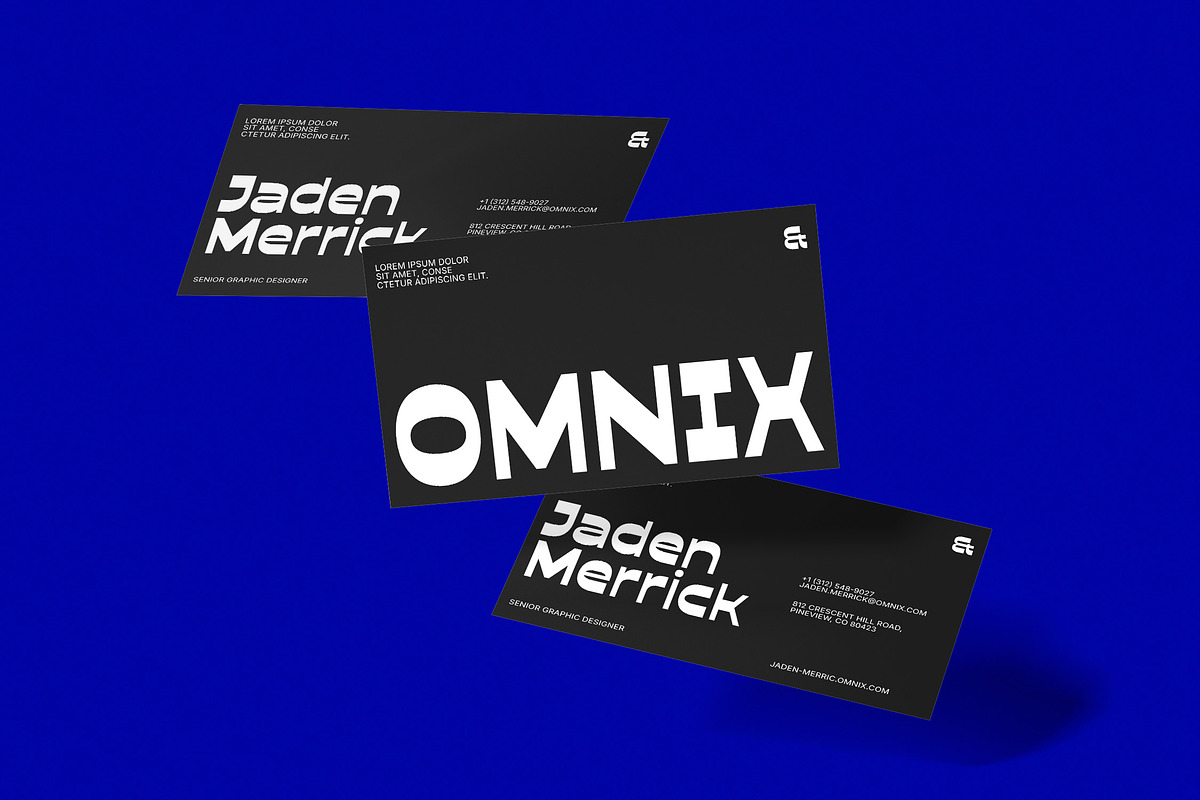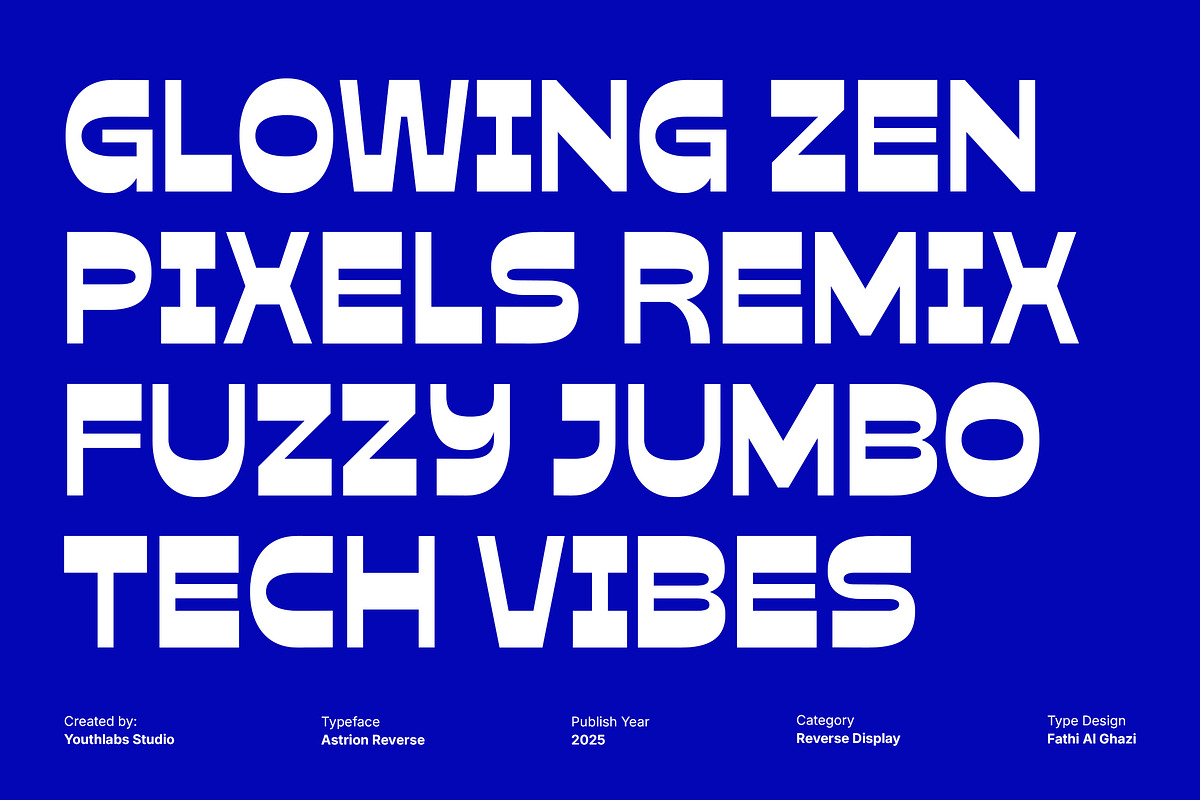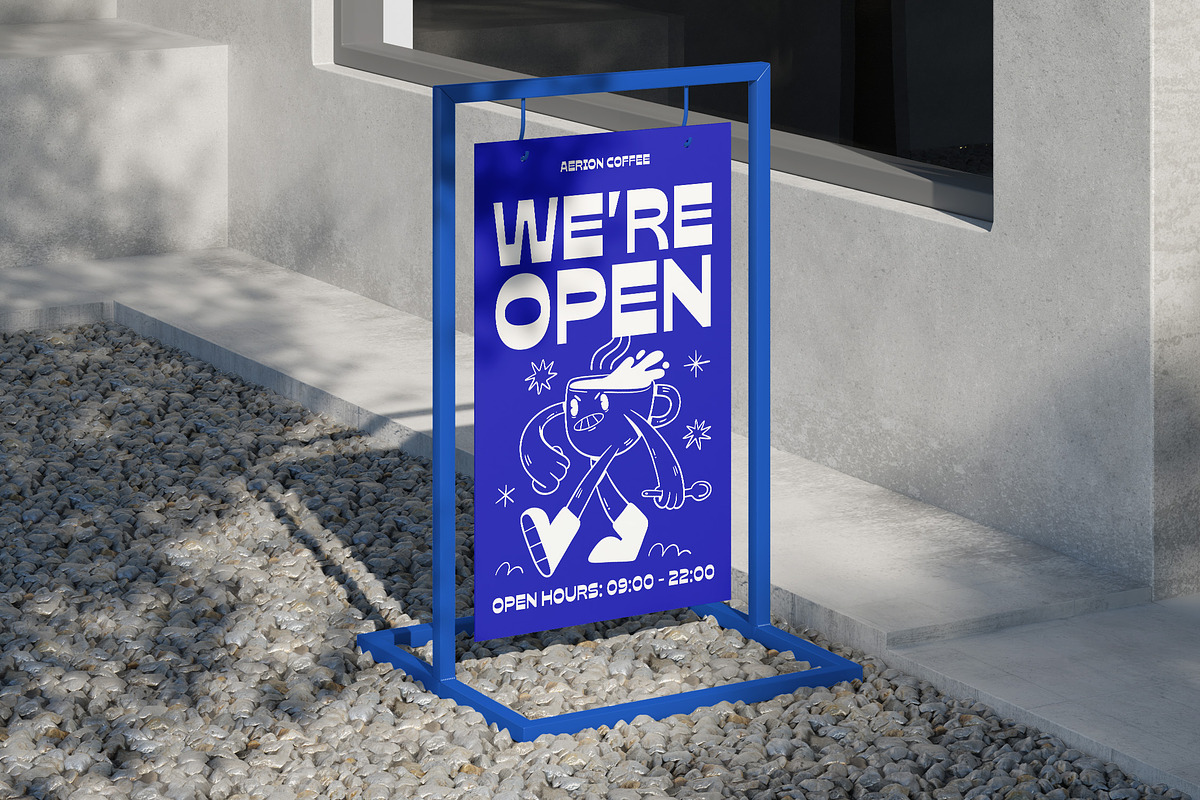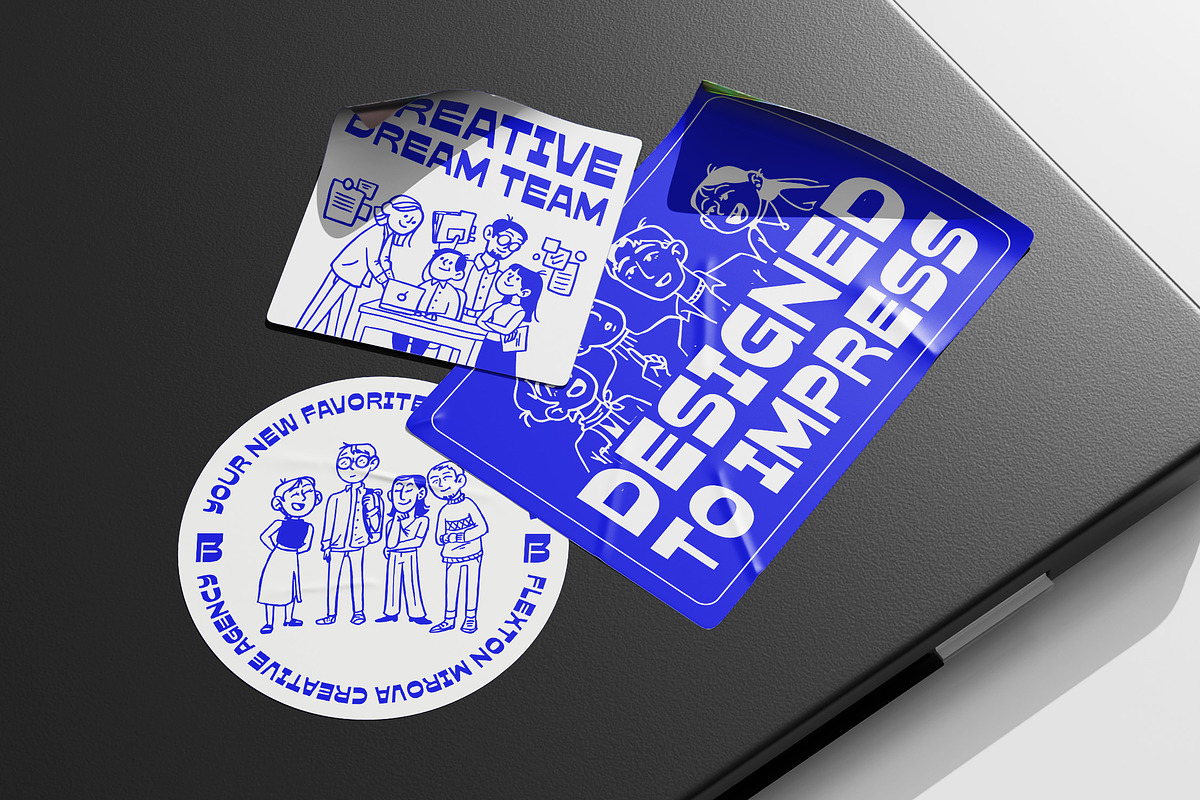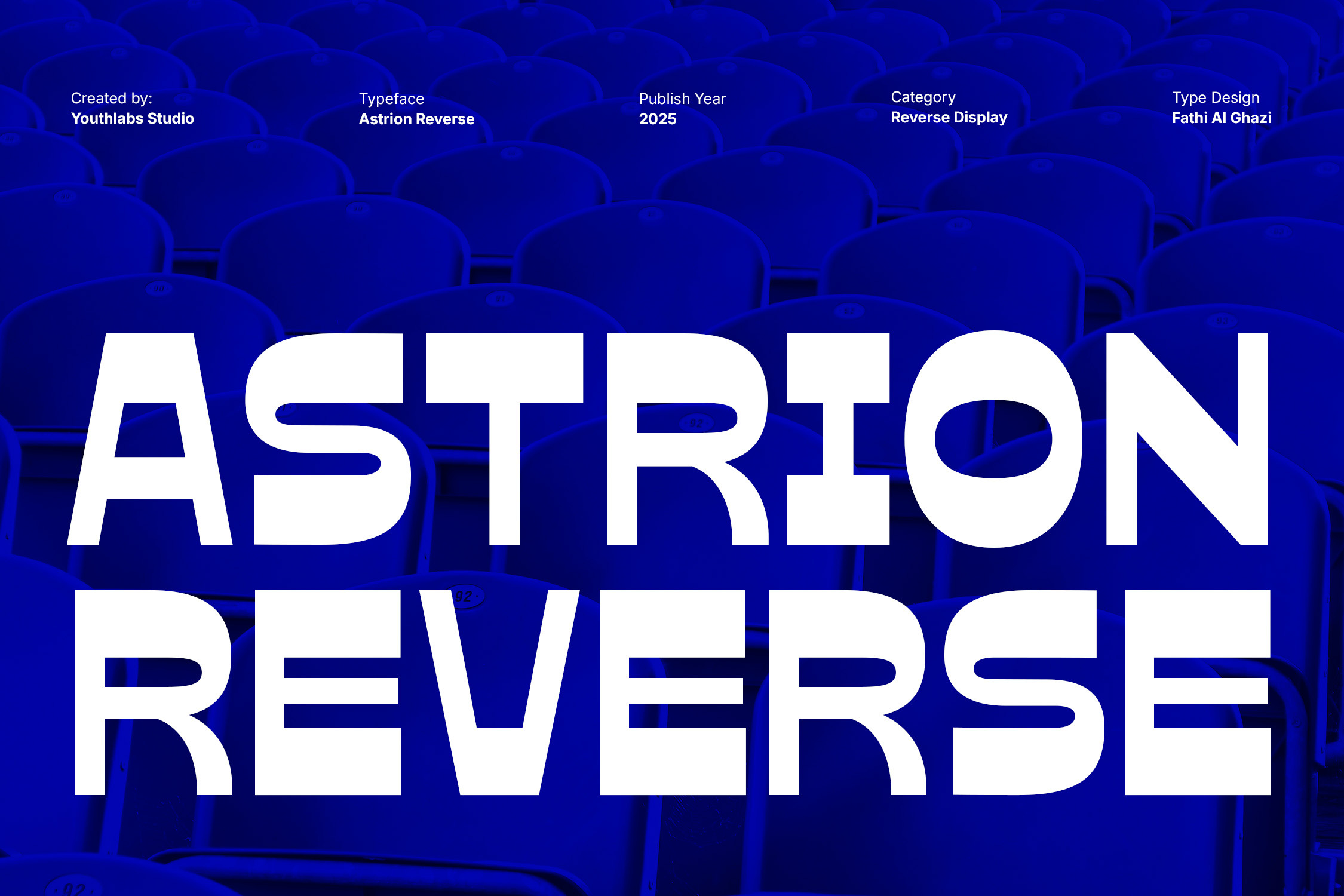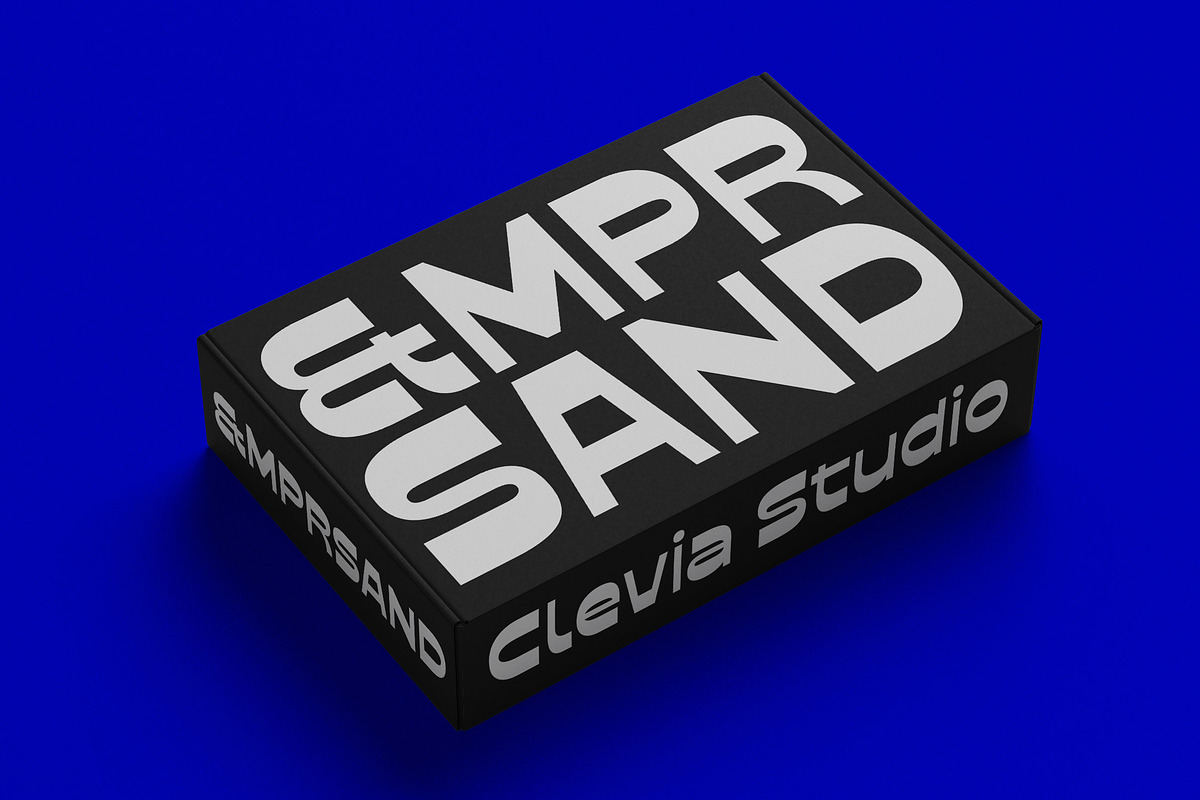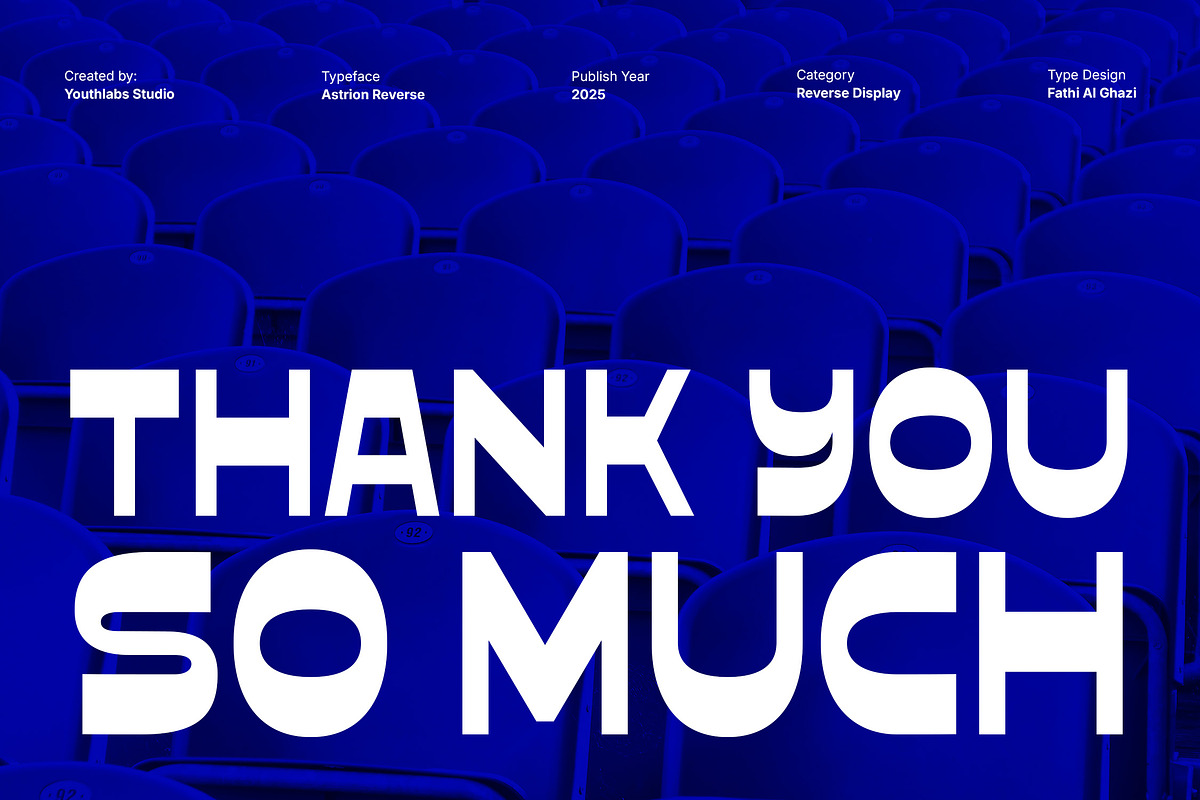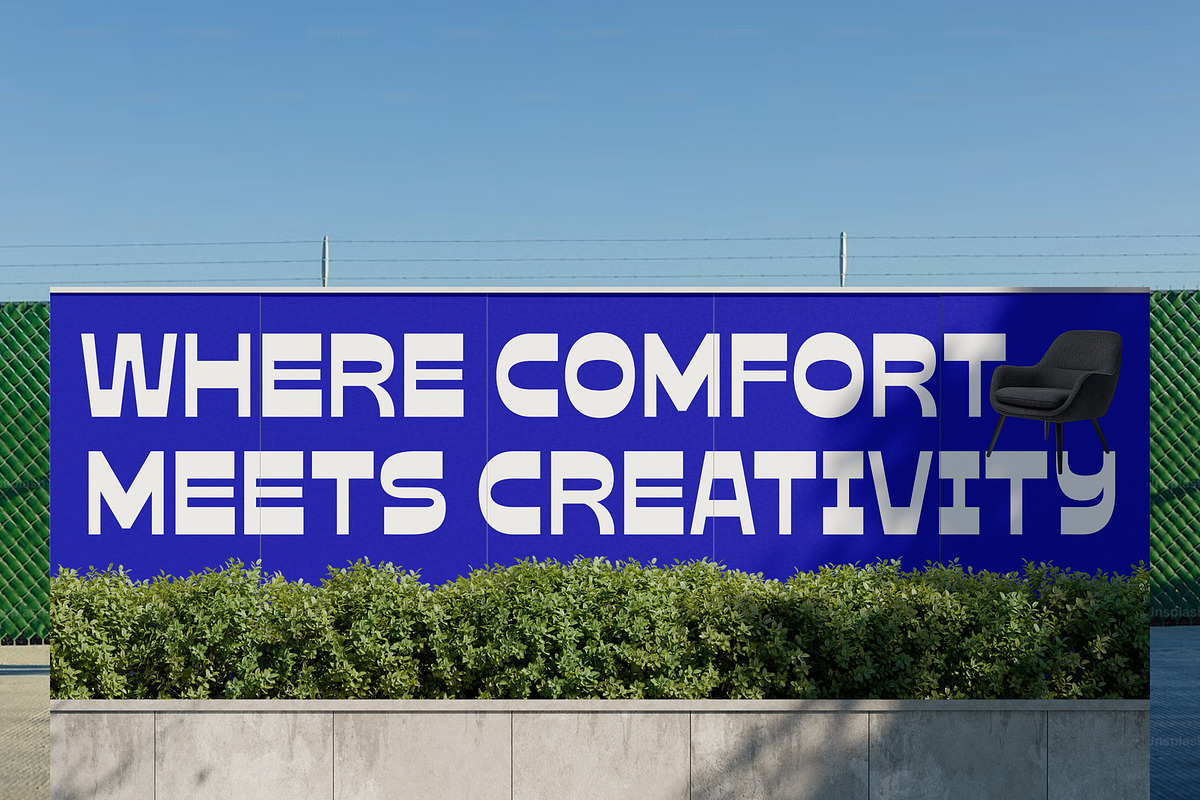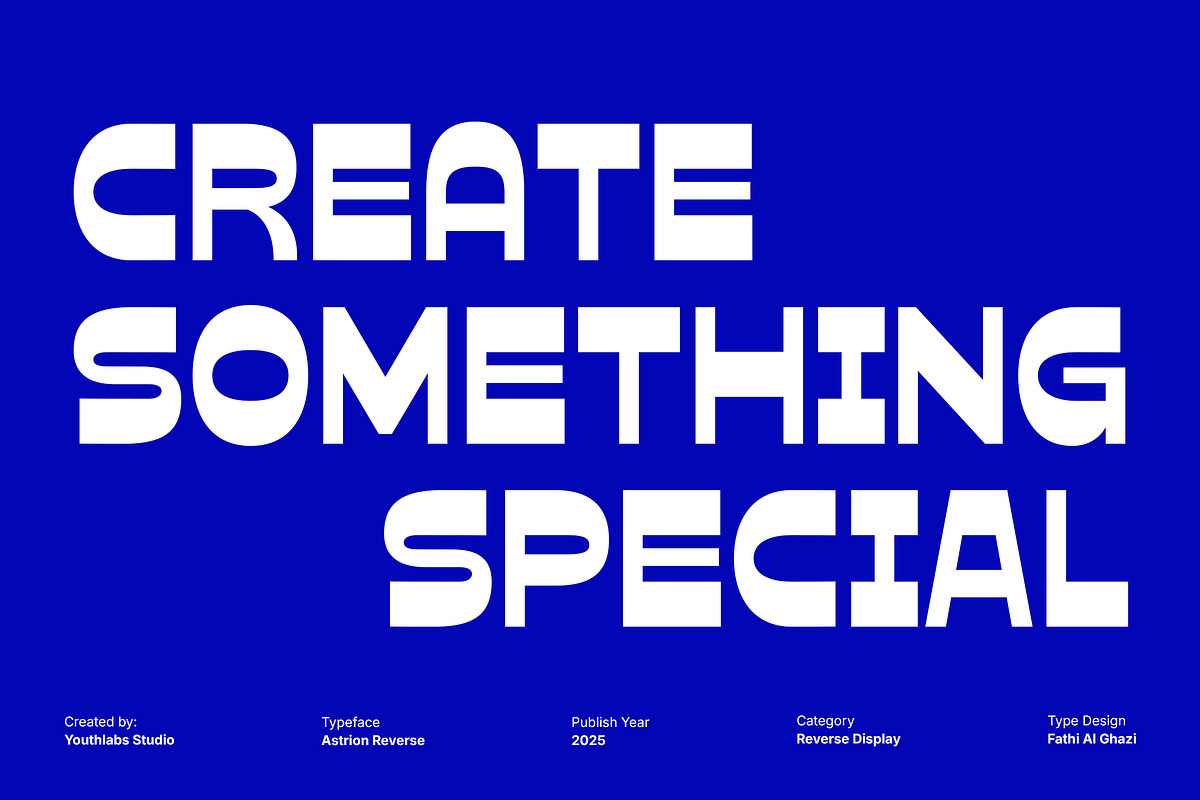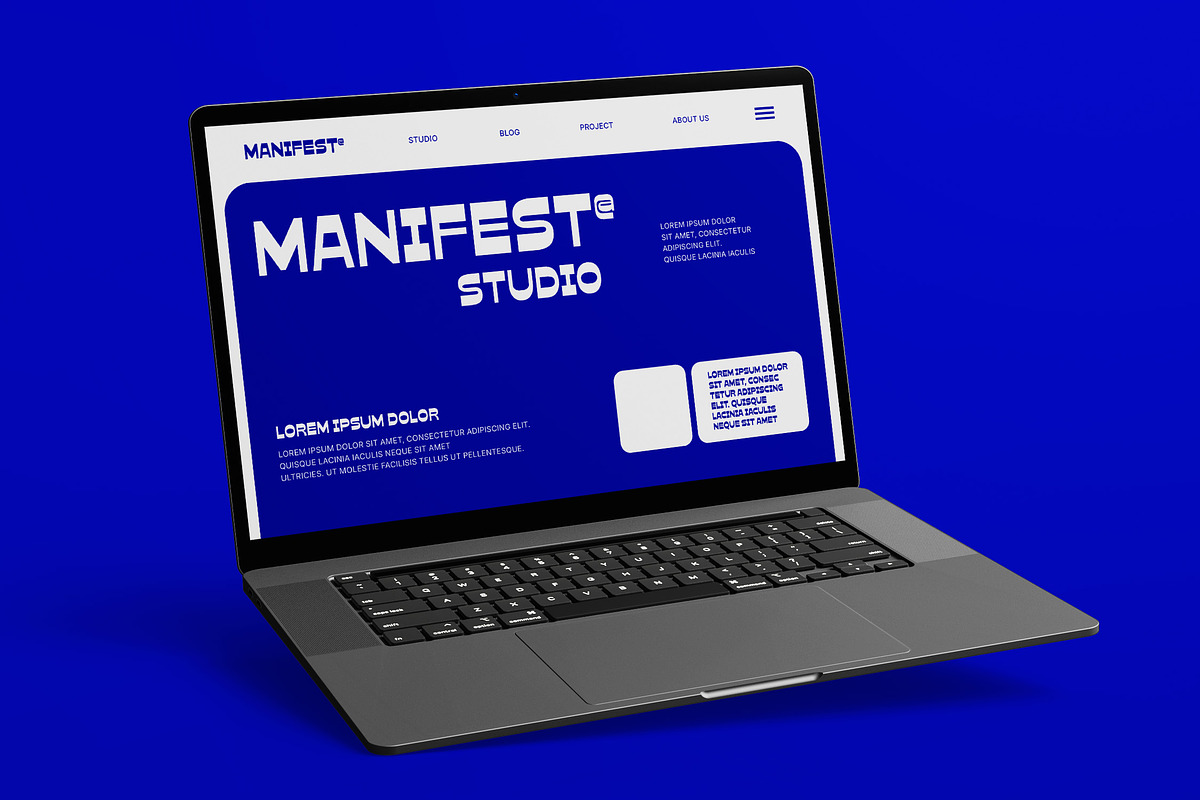
Astrion Reverse – Bold Display Font
Astrion Reverse is a bold, futuristic reverse-contrast display typeface designed to command attention. Its unique structure flips traditional contrast rules, giving each letter a striking, modern, and experimental appearance. Perfect for branding, posters, esports visuals, editorial titles, stadium graphics, tech presentations, and any design that demands a strong visual identity. Astrion Reverse blends geometric precision with a bold attitude—making it ideal for designers who want impact and originality.
- Reverse-contrast display style
- Strong geometric and futuristic shapes
- Bold, high-impact letterforms
- Perfect for branding & esports design
- Ideal for posters, titles, and headlines
- Modern and experimental aesthetic